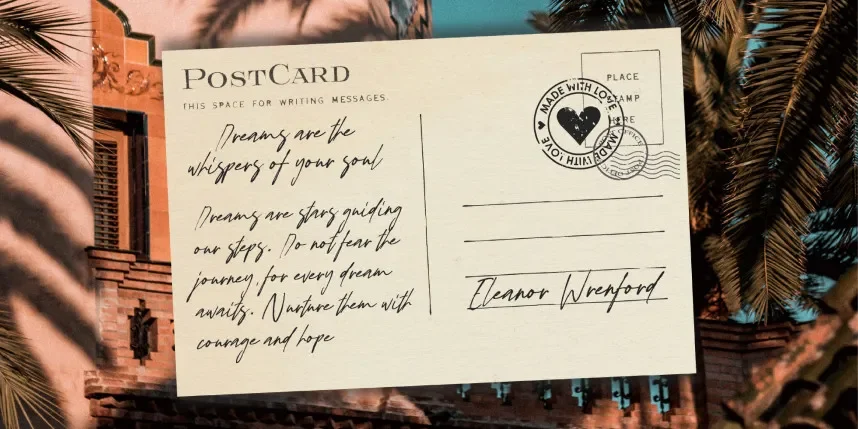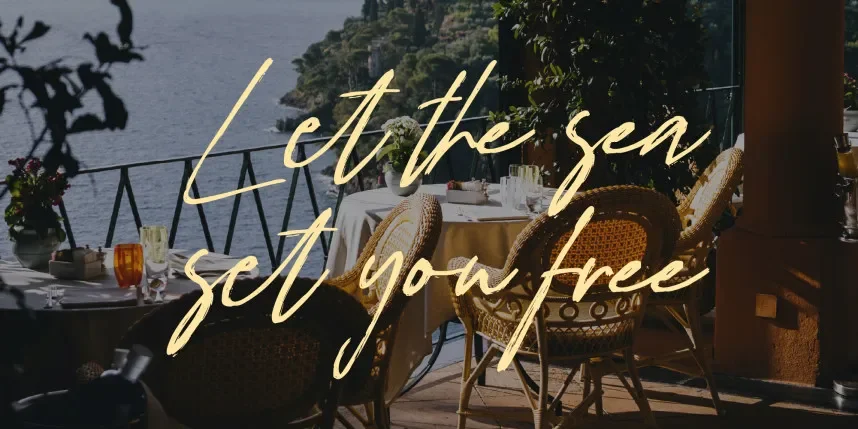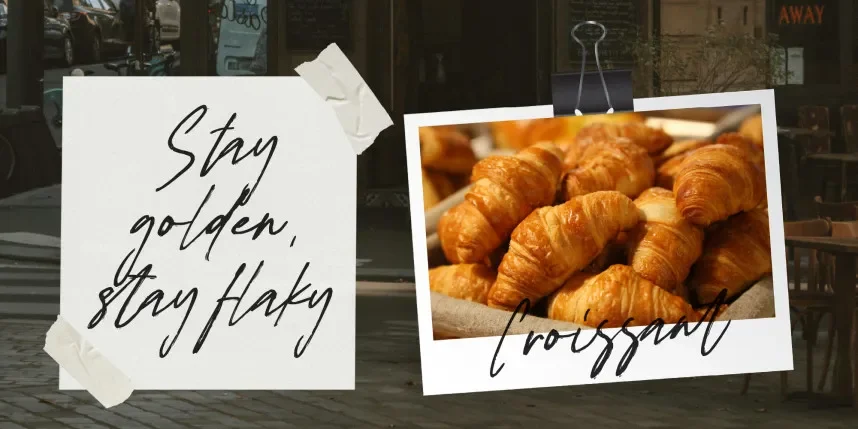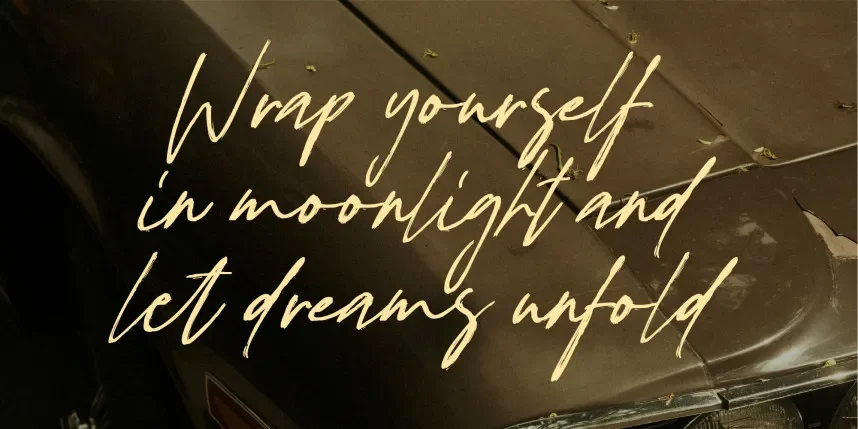
Figuea Granatae Font is a handwritten script typeface designed to improve readability and add personality to creative projects such as logos, social media posts, and stationery. It addresses design challenges like maintaining clarity while providing a casual, authentic handwritten style.
Figuea Granatae features smooth, flowing strokes, connected letters, and open counters. Its ligatures and stylistic alternates support dynamic layouts for headings, digital content, and print media. The font conveys a playful yet professional impression, making it suitable for branding, wedding invitations, and email signatures.